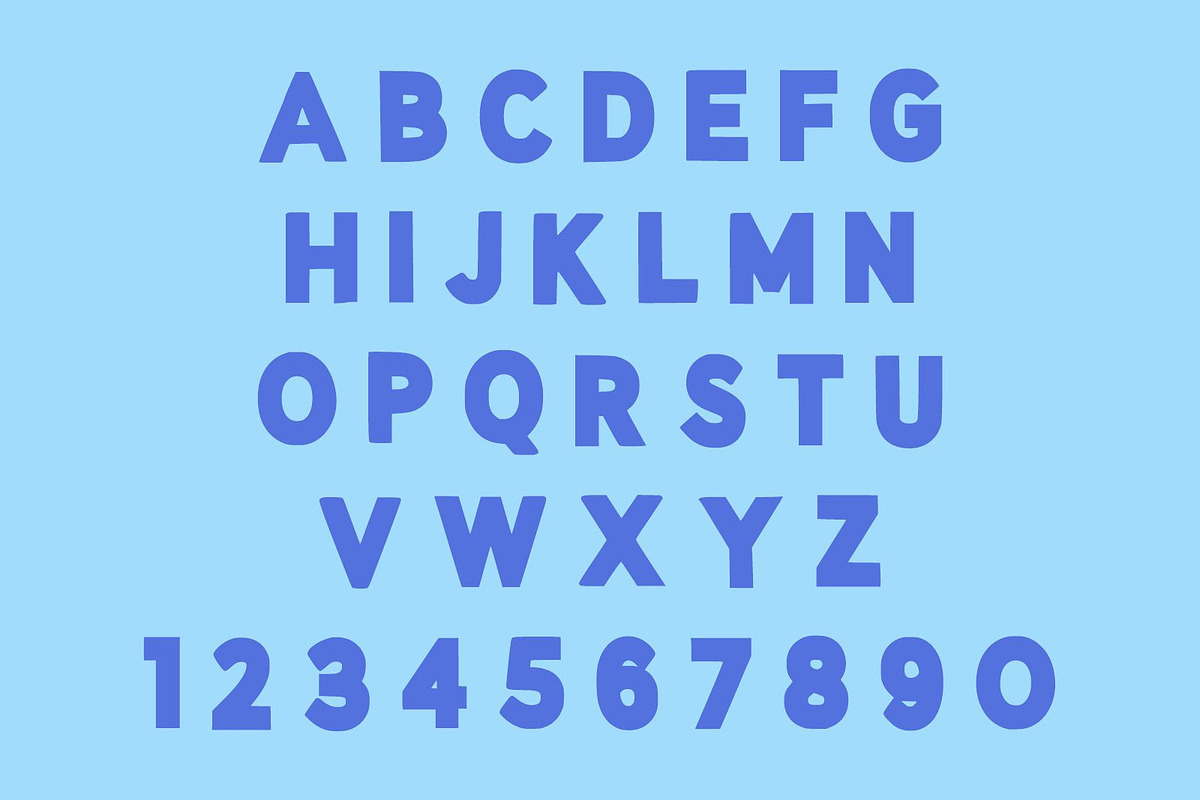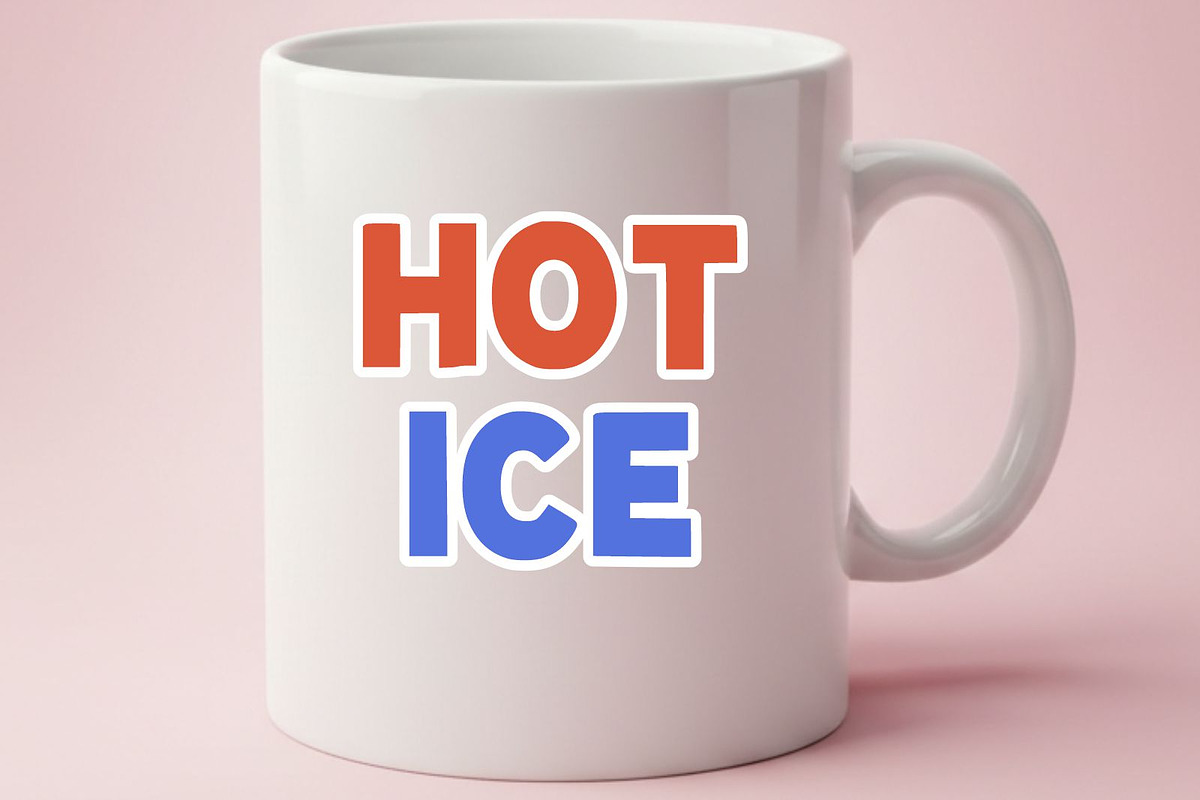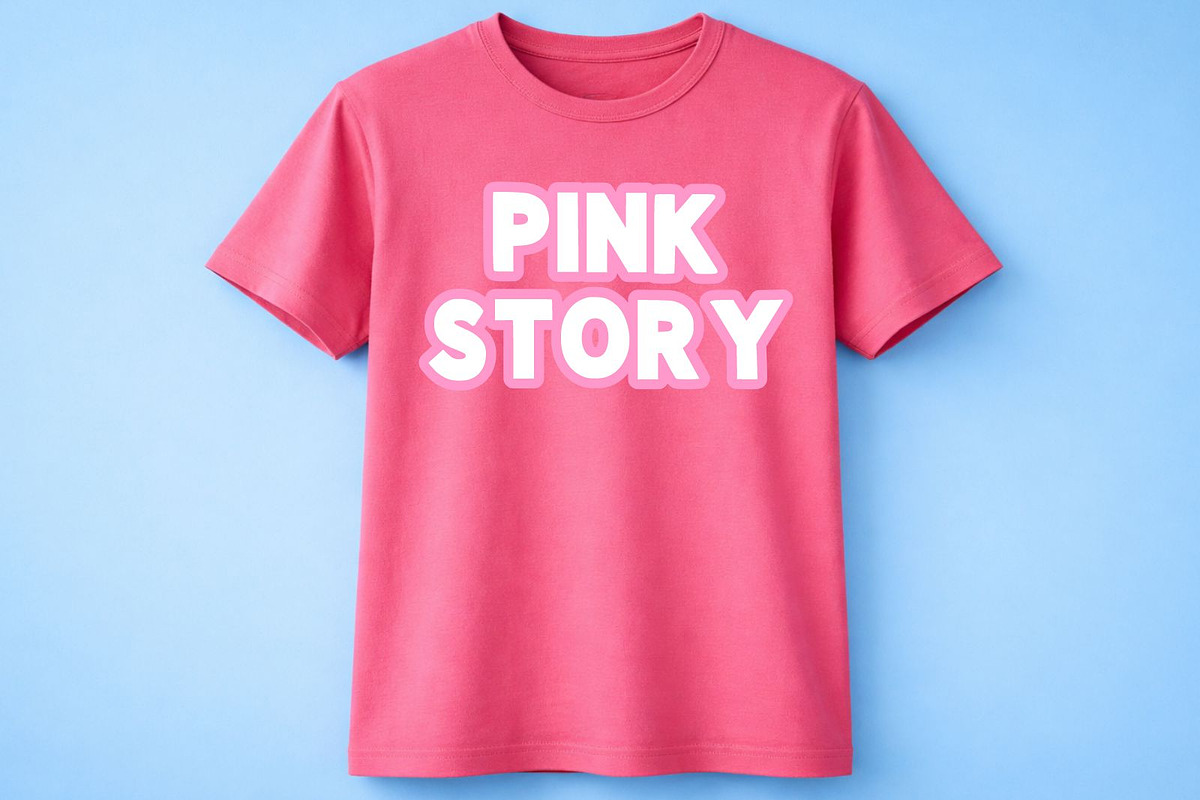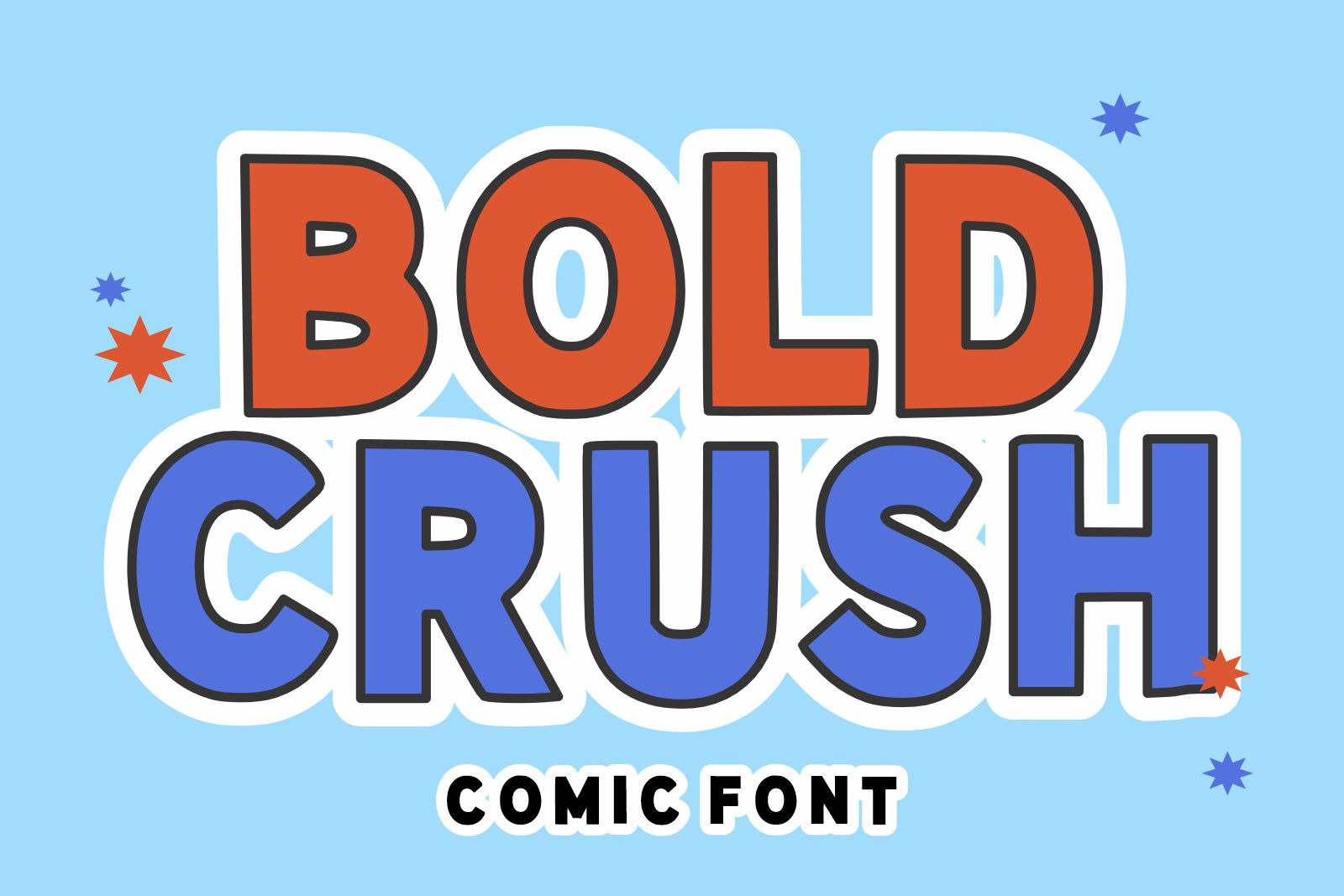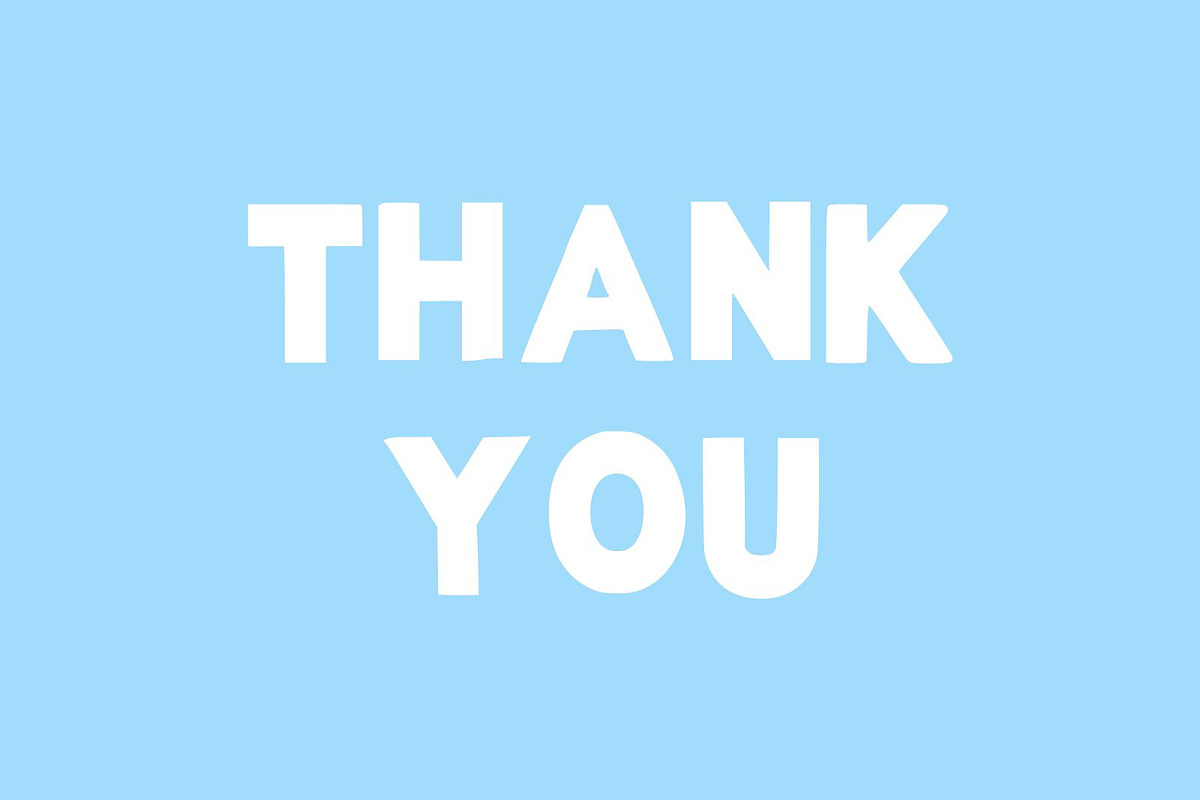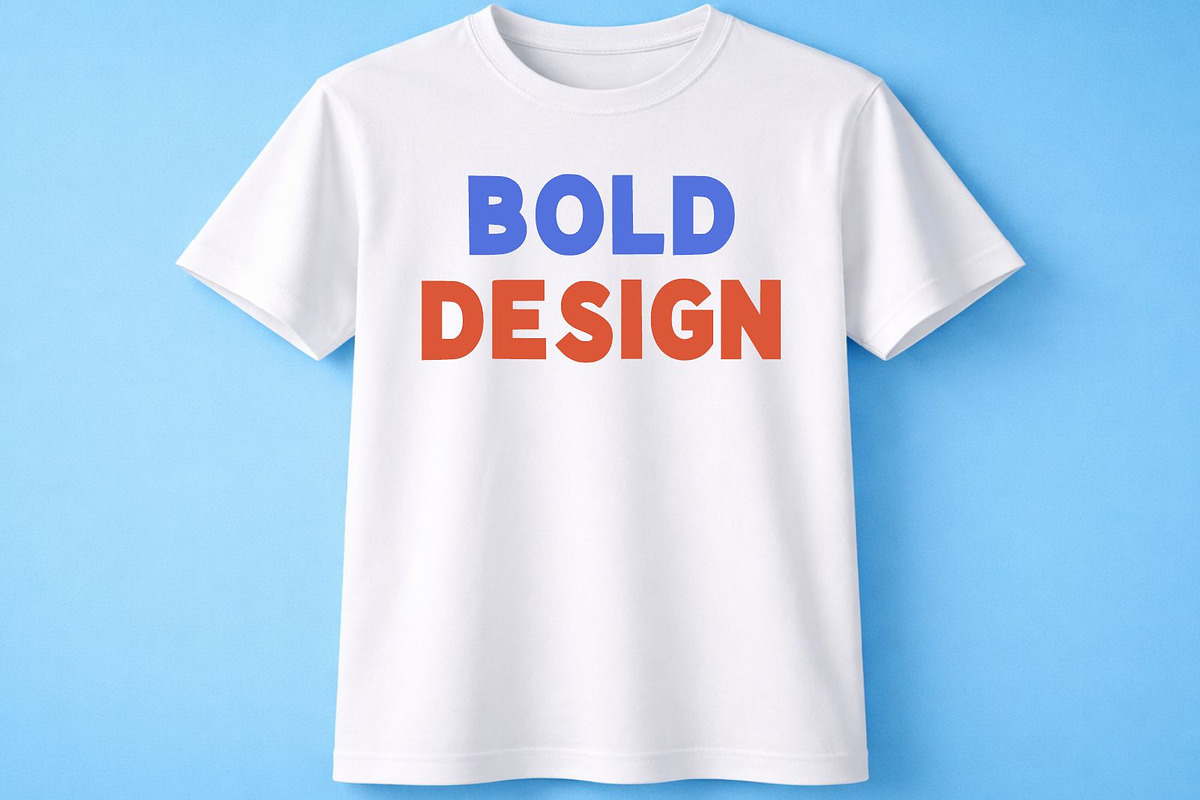
Bold Crush – Playful Comic Font
Bold Crush is a fun, energetic, and eye-catching comic display font designed to bring excitement and personality to your creative projects. Featuring thick bold letterforms, smooth curves, and a playful cartoon-inspired style, this font instantly grabs attention while maintaining excellent readability.
Perfect for children's books, comic titles, educational materials, posters, YouTube thumbnails, social media graphics, stickers, packaging, branding, toy products, game designs, and fun merchandise, Bold Crush delivers a cheerful and friendly appearance that works beautifully in both digital and print applications.
Its bold structure makes every word stand out, while the playful character shapes add a sense of creativity and movement. Whether you're designing colorful invitations, comic book covers, classroom decorations, birthday themes, or playful marketing materials, Bold Crush helps your message appear vibrant, approachable, and memorable.
The font is carefully crafted to provide a clean and professional finish while maintaining the charm of classic cartoon typography. It pairs wonderfully with bright colors, fun illustrations, and modern graphic elements, making it a versatile choice for designers looking to create engaging and youthful designs.
Add a burst of fun and creativity to your next project with Bold Crush – the perfect comic display font for bold, cheerful, and imaginative designs.